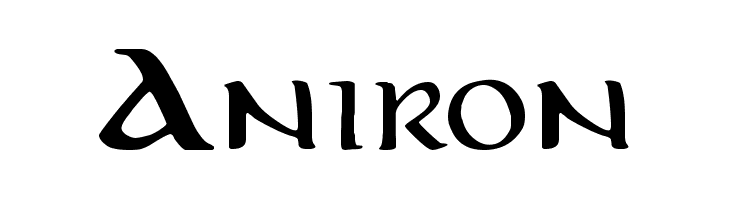
A medieval-inspired font with sharp serifs and unique letterforms, ideal for fantasy themes.
A bold, medieval-inspired font with sharp, angular lines and decorative elements.